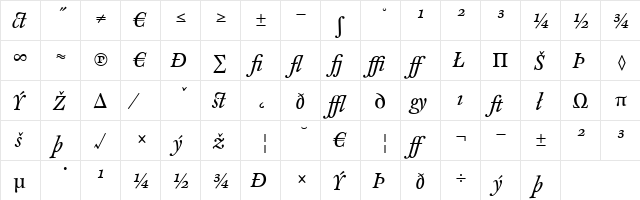
CliffordEighteen Italic Font Preview
CliffordEighteen Italic
CliffordEighteen Italic Font Details
| Foundry | Akira Kobayashi, . Published by FontShop International. FontFont Release |
Design Context for CliffordEighteen Typeface
CliffordEighteen is a composed and adaptable typeface that performs quietly and consistently across a wide range of design contexts. Its italic angle brings a sense of urgency and motion to the letterforms.